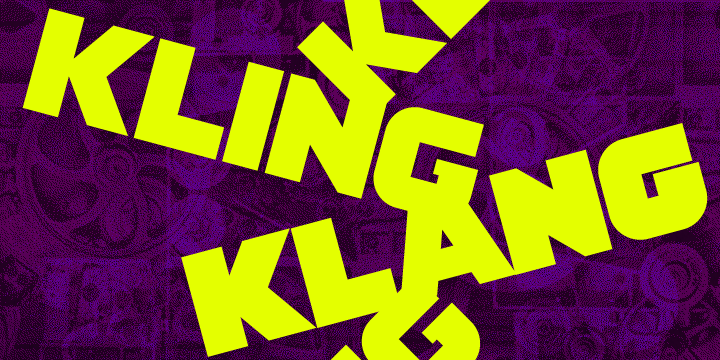
FT Industry Machine Free Download
FT Industry Machine Font Free Download
FT Industry Machine Font excels across diverse design applications including manufacturing company branding, industrial equipment marketing, factory communications, mechanical engineering presentations, automation technology materials, heavy machinery advertising, industrial safety signage, and production facility documentation. Its mechanical character makes it particularly effective for projects requiring industrial authority while maintaining contemporary readability, ensuring your designs convey manufacturing expertise and operational reliability across both digital platforms and factory-grade print materials.
What makes FT Industry Machine Font truly exciting is its innovative approach to typography that perfectly captures the essence of industrial machinery and manufacturing precision through carefully engineered letterforms. The font features precisely crafted characters that incorporate subtle mechanical elements and robust proportions that create striking industrial impact while preserving optimal communication effectiveness. Its distinctive character construction combines manufacturing inspiration with modern functionality, creating text that feels both mechanically powerful and professionally dependable. The font's optimized spacing and structured character relationships ensure superior performance across various industrial applications while maintaining the characteristic strength that defines its mechanical personality.
FT Industry Machine Font presents a comprehensive type family designed to support diverse manufacturing and industrial design requirements. The family typically includes regular, medium, bold, and heavy weights, along with corresponding condensed variations that provide complete flexibility for industrial typography compositions. Many versions feature extended character sets with technical symbols, machinery ornaments, and specialized glyphs that enhance authentic industrial aesthetic applications.
The FT Industry Machine Font Free Download represents exceptional value for designers working on manufacturing-focused and industrial projects across multiple sectors. Whether developing heavy industry branding, creating machinery communications, designing factory safety materials, or producing manufacturing content, this font delivers consistent authority and memorable industrial appeal. Its mechanical characteristics make it particularly effective for industries including manufacturing, heavy machinery, industrial automation, and production engineering sectors seeking to communicate technical expertise and manufacturing reliability.
For optimal results, FT Industry Machine Font combines powerfully with industrial color schemes and mechanical design elements that reinforce its manufacturing message. Its robust presence excels in headline applications while maintaining excellent performance in technical documentation contexts. The font's industrial sophistication and mechanical appeal make it an invaluable tool for creating authoritative communications that resonate with audiences expecting manufacturing competence and industrial excellence.